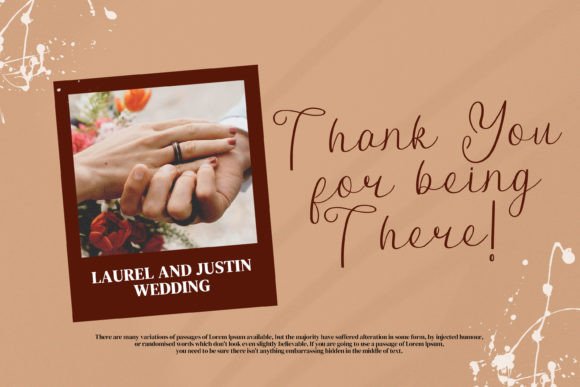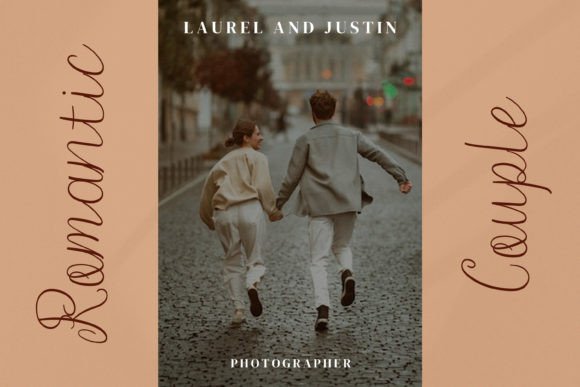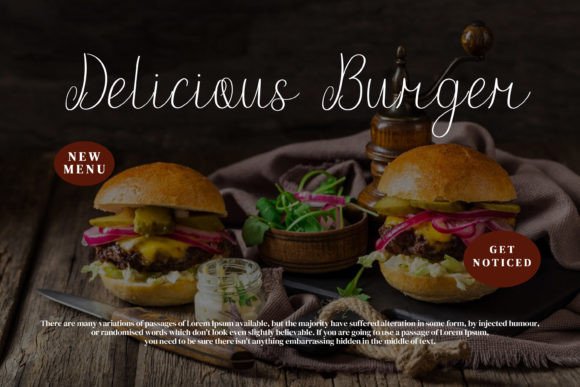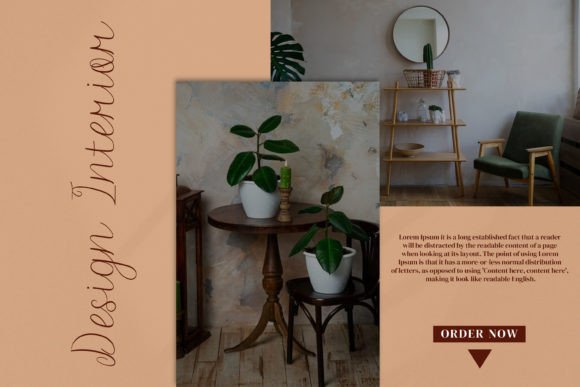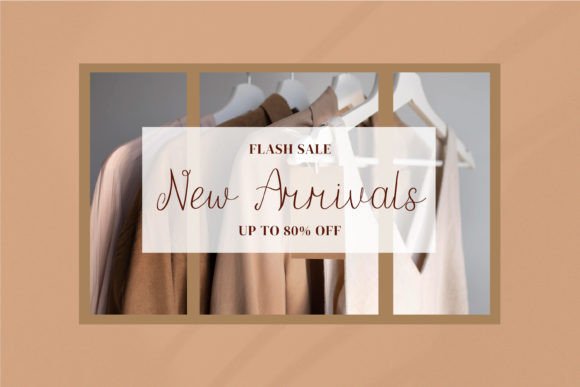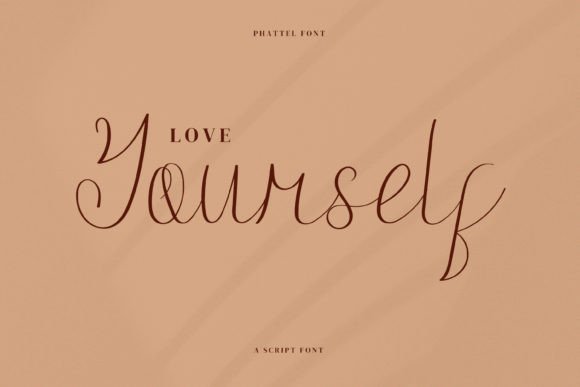
Introduction to Phattel Font
There’s nothing quite like the rush of excitement you feel when you’re brainstorming ideas for your next creative project. You’re sipping your morning coffee, flipping through design inspiration boards, and suddenly, the perfect font pops into your head. For many designers, this moment is what drives them to create something truly special. And, for those in search of that perfect font, we’ve got exciting news – the Phattel Font is here to take your designs to the next level.
This enchanting handwritten font is a treasure trove of possibilities, from romantic wedding invitations to whimsical children’s books. With its elegant, flowing script, the Phattel Font adds a touch of sophistication and elegance to any design project. Whether you’re a seasoned designer or just starting out, this versatile font is sure to become your go-to resource for high-quality designs.
Key Features of Phattel Font
- Phattel Font offers a transparent background, allowing for seamless integration with various design elements.
- Unique characteristics include a bold, modern design and a wide range of glyph combinations.
- Perfect for designers, artists, and creatives working on various design projects, including logos, graphics, and more.
Honest Review: Phattel Font
As a designer, I’ve had the pleasure of working with various fonts for my creative projects. The Phattel Font is one such design resource that caught my attention. Let’s dive into what works well and what could be improved.
- ✨ High-quality design: The Phattel Font is well-designed and has a unique aesthetic that can elevate any project.
- ✨ Transparent background: This feature is super useful for creating seamless designs and ensuring that the font blends in with the background.
- ⚠️ Limited font styles: While the Phattel Font is well-designed, it’s limited in terms of font styles, which might not be suitable for every project.
- ⚠️ Not ideal for body text: Due to its bold and playful nature, the Phattel Font might not be the best choice for body text, where readability is key.
Overall, the Phattel Font is a great addition to any designer’s toolkit. While it has its limitations, it’s a high-quality design resource that can add a unique touch to creative projects. With its transparent background and free download, it’s definitely worth checking out.
How to Use Phattel Font
Phattel Font is a high-quality, free download design resource ideal for any creative project. Its unique style and versatility make it a great addition to any design collection.
Tips for Getting the Most Out of Phattel Font
To get the most out of Phattel Font, be sure to:
- Experiment with different font sizes and styles.
- Use the font in combination with other design elements.
- Take advantage of the font’s transparent background feature.
Phattel Font is commonly used in:
- Graphic design projects.
- Branding and logo design.
- Infographics and data visualization.
- Print and digital marketing materials.